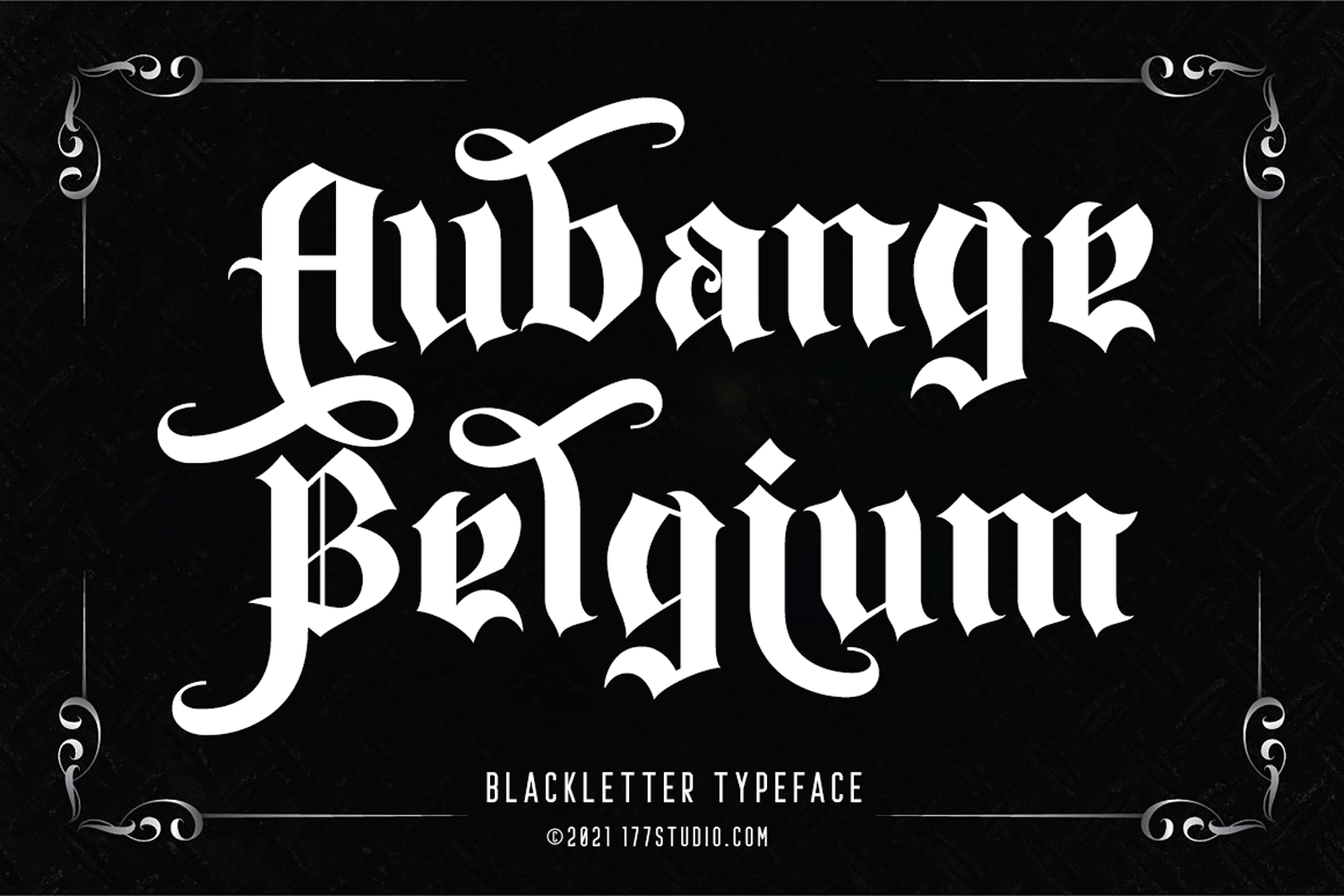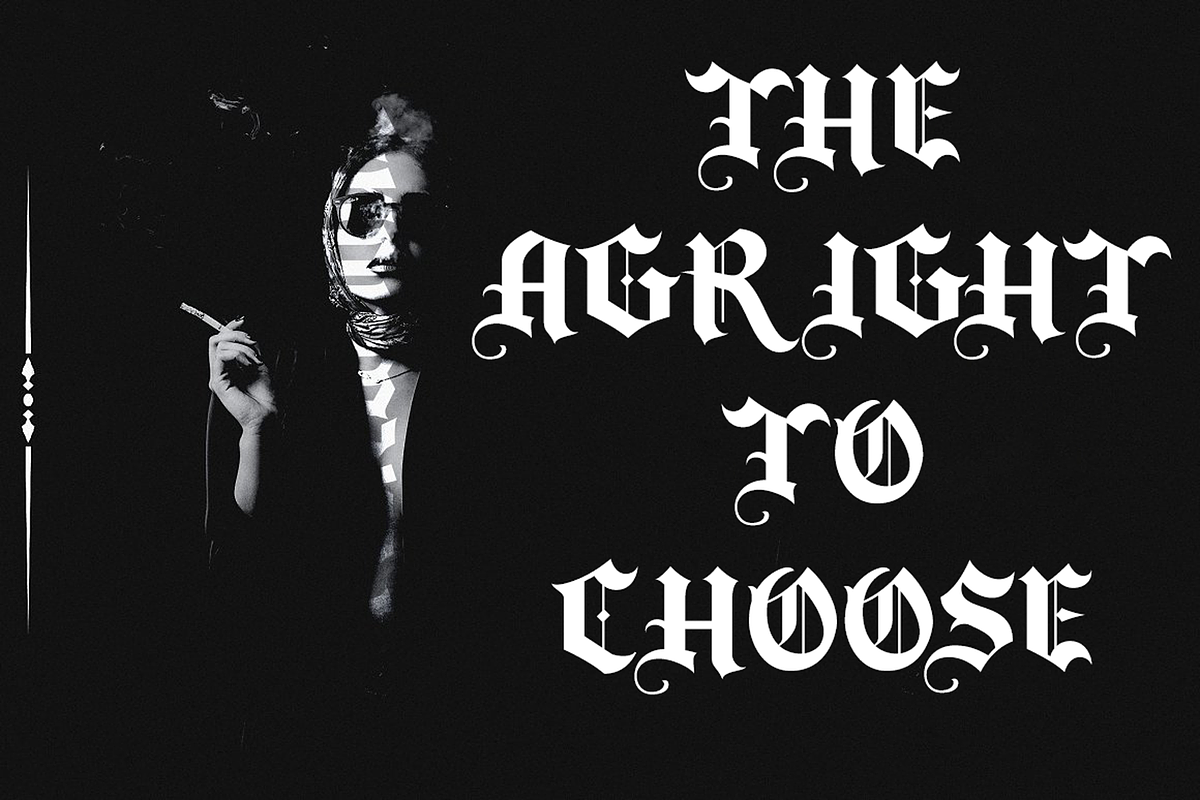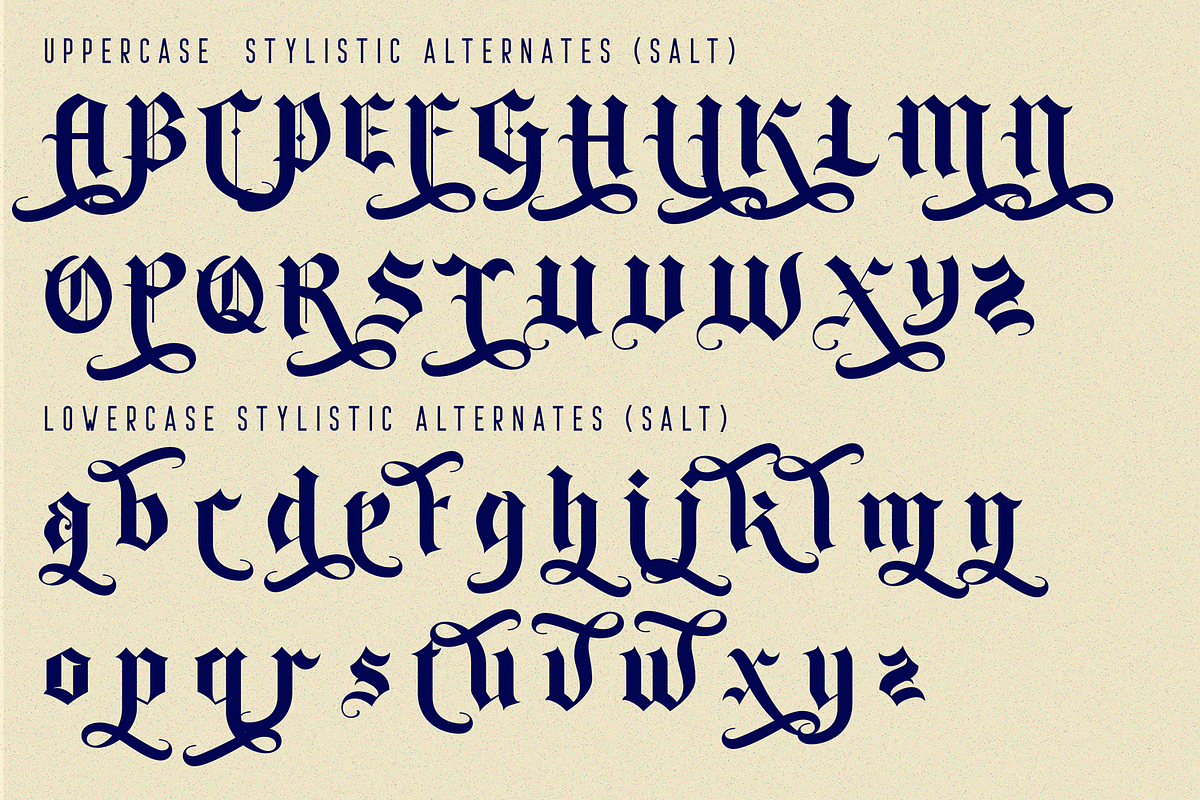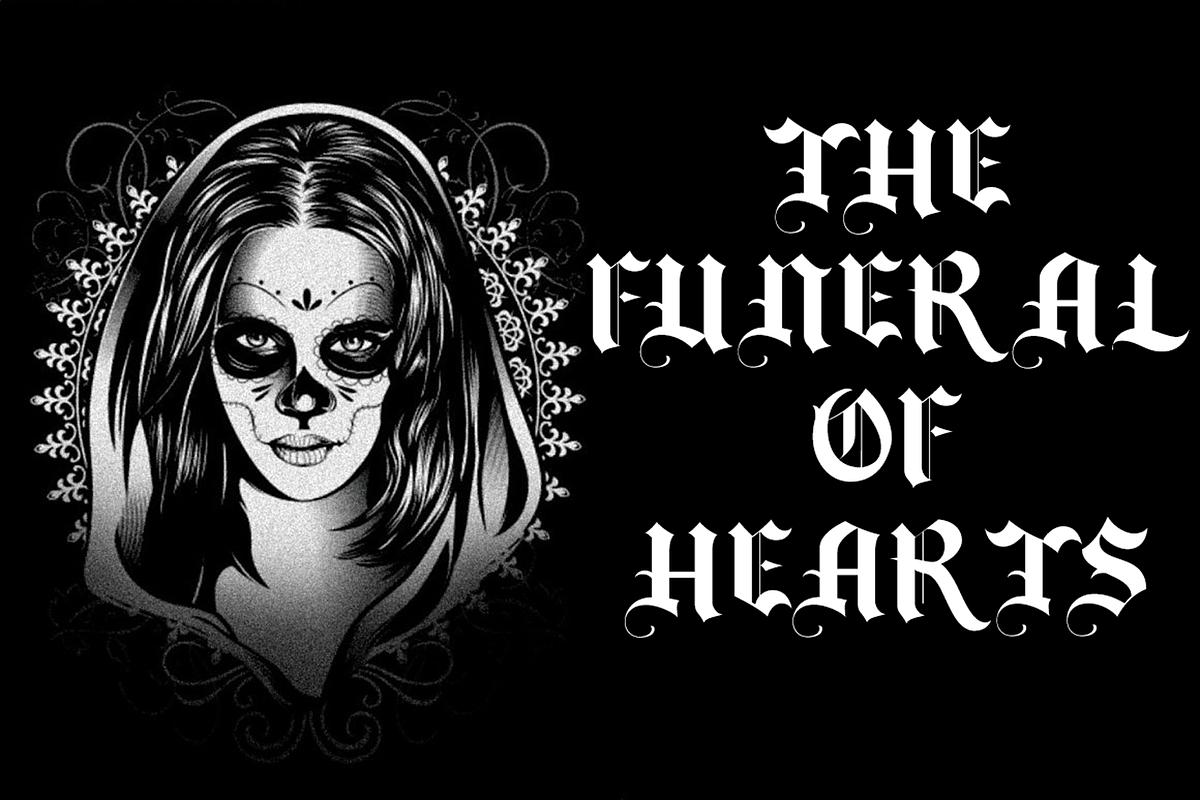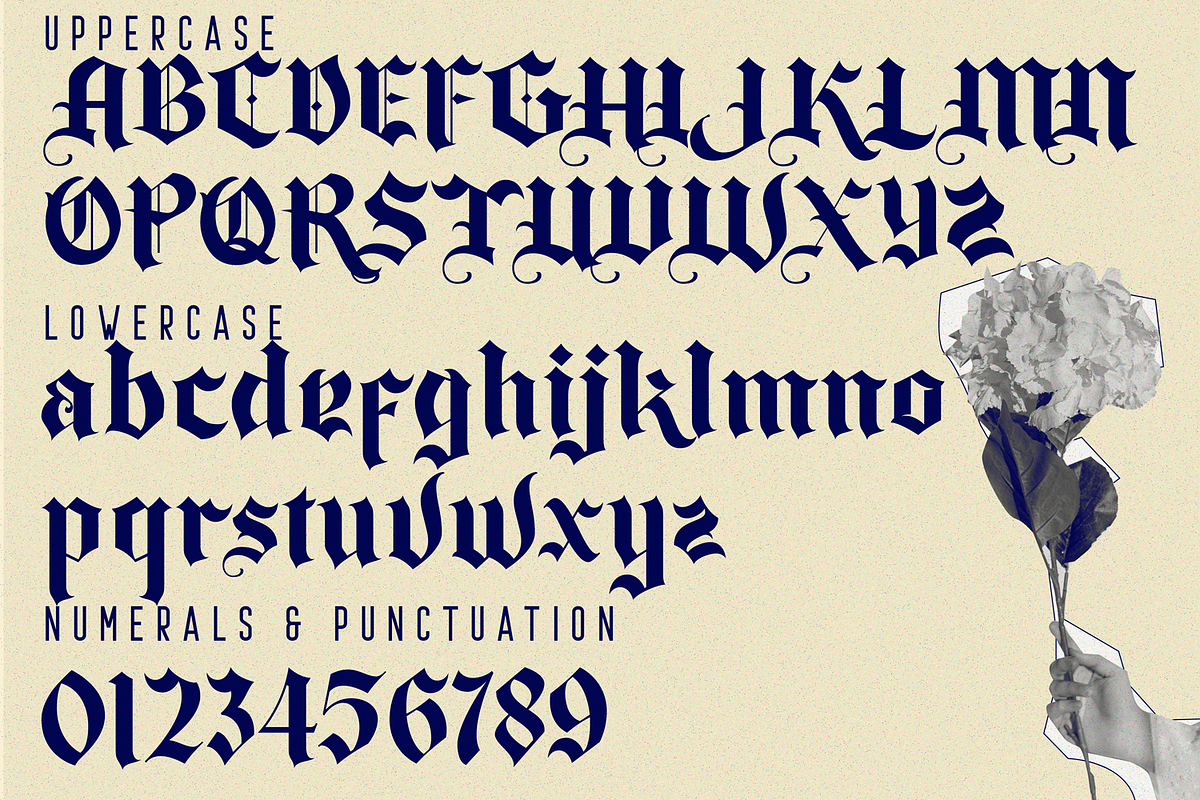
Aubange Belgium Font
Aubange Belgium Font is the transformation of the classic blackletter font into the modern world. The blackletter character is very strong and prominent will be the choice for a new style brand. This font is made with references to various letters that I combine and design with my style. It's are great and usefull for product logo, poster title, headline, packaging, badge, wedding card logo, clothing brand logo, Vintage design and much more.